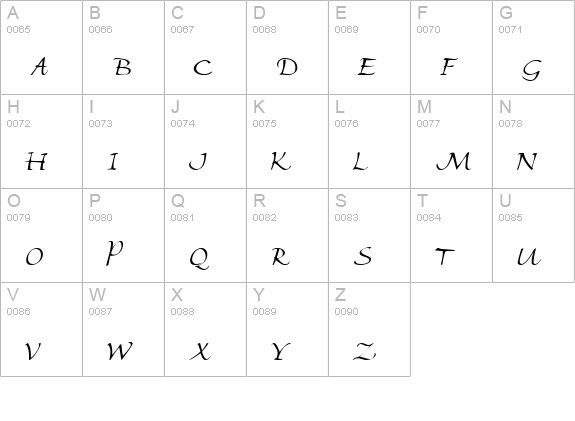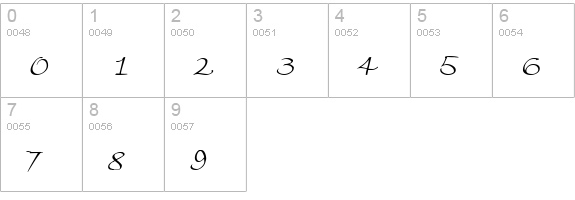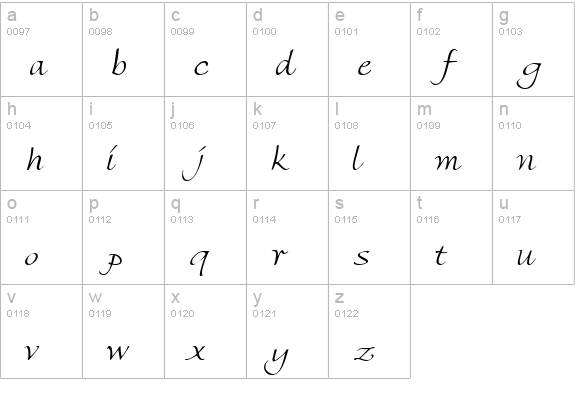
AmbienteScriptSSK Font Details
AmbienteScriptSSK is a stunning and elegant handwritten font that exudes sophistication and charm. With its flowing strokes and graceful curves, this font is perfect for adding a touch of class to any design project. Whether you're creating wedding invitations, branding materials, or social media graphics, AmbienteScriptSSK will elevate your work to the next level. What's even better is that AmbienteScriptSSK is completely free to download at FontsMarket.com! This means you can access this beautiful font at no cost, making it the perfect choice for budget-conscious designers and creatives. Don't miss out on the opportunity to enhance your projects with AmbienteScriptSSK's timeless and refined style. Download it today and see the difference it can make in your designs.